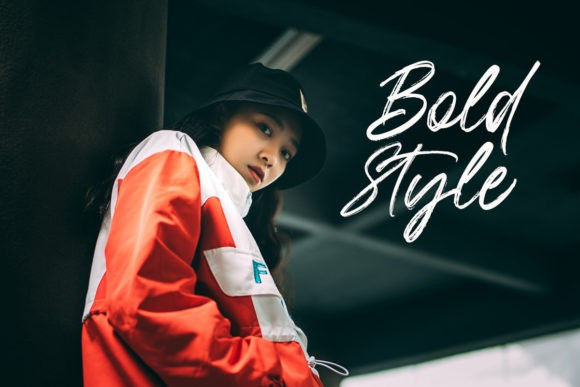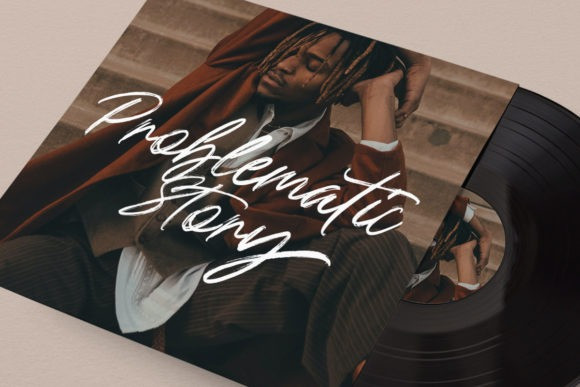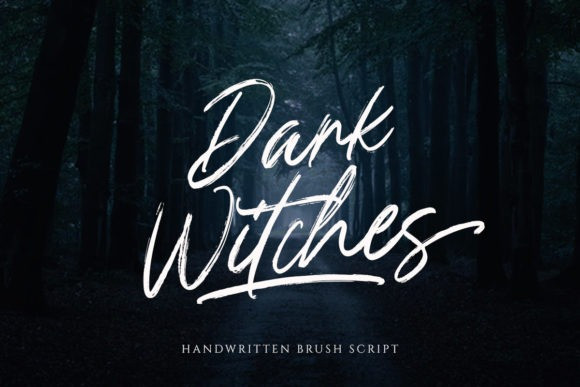
Dark Witches Font
Dark Witches Font is a cool brushed handwritten font, featuring a lovely flow. This font is PUA encoded which means you can access all of the glyphs and swashes with ease! Fall in love with its incredibly versatile style and use it to create spectacular designs!